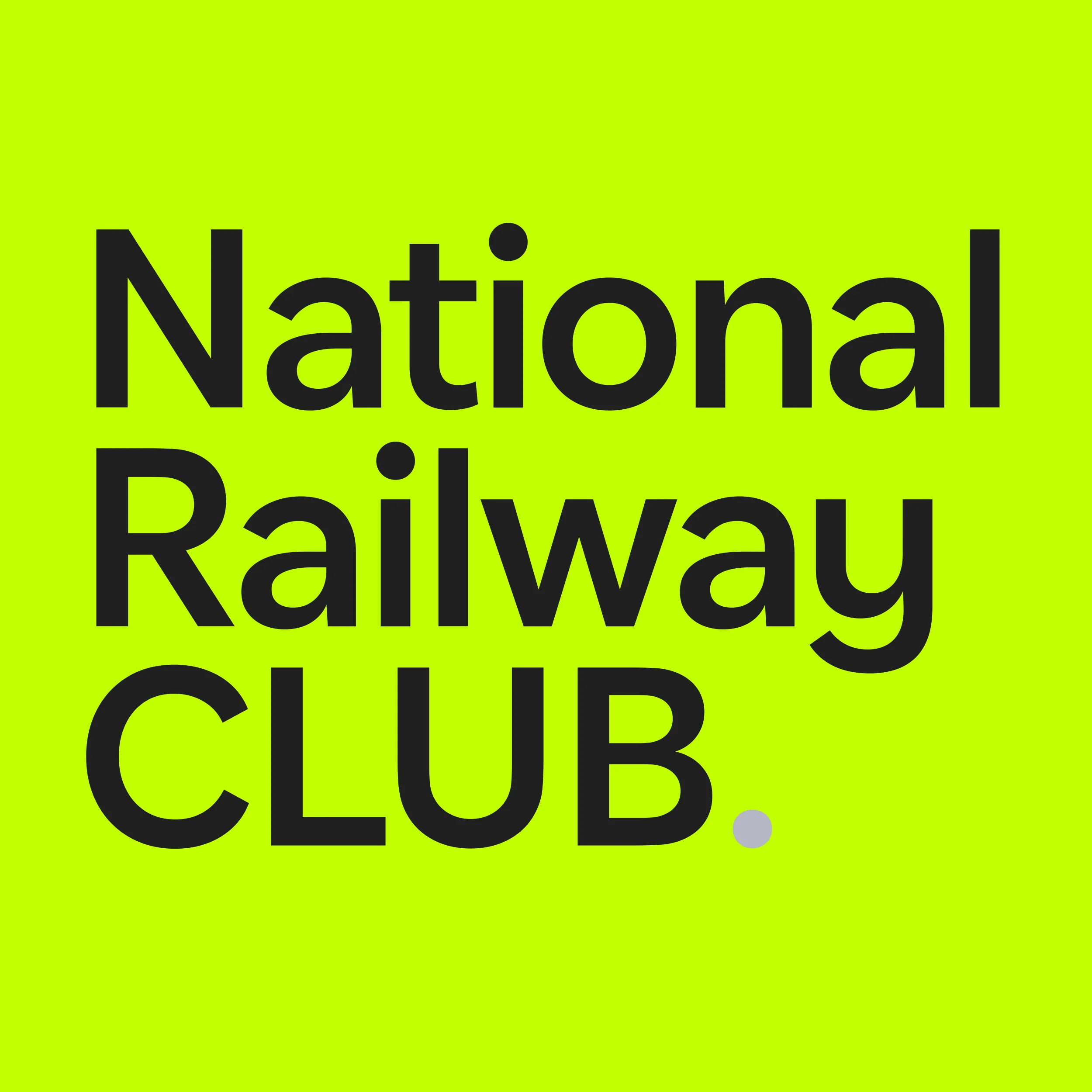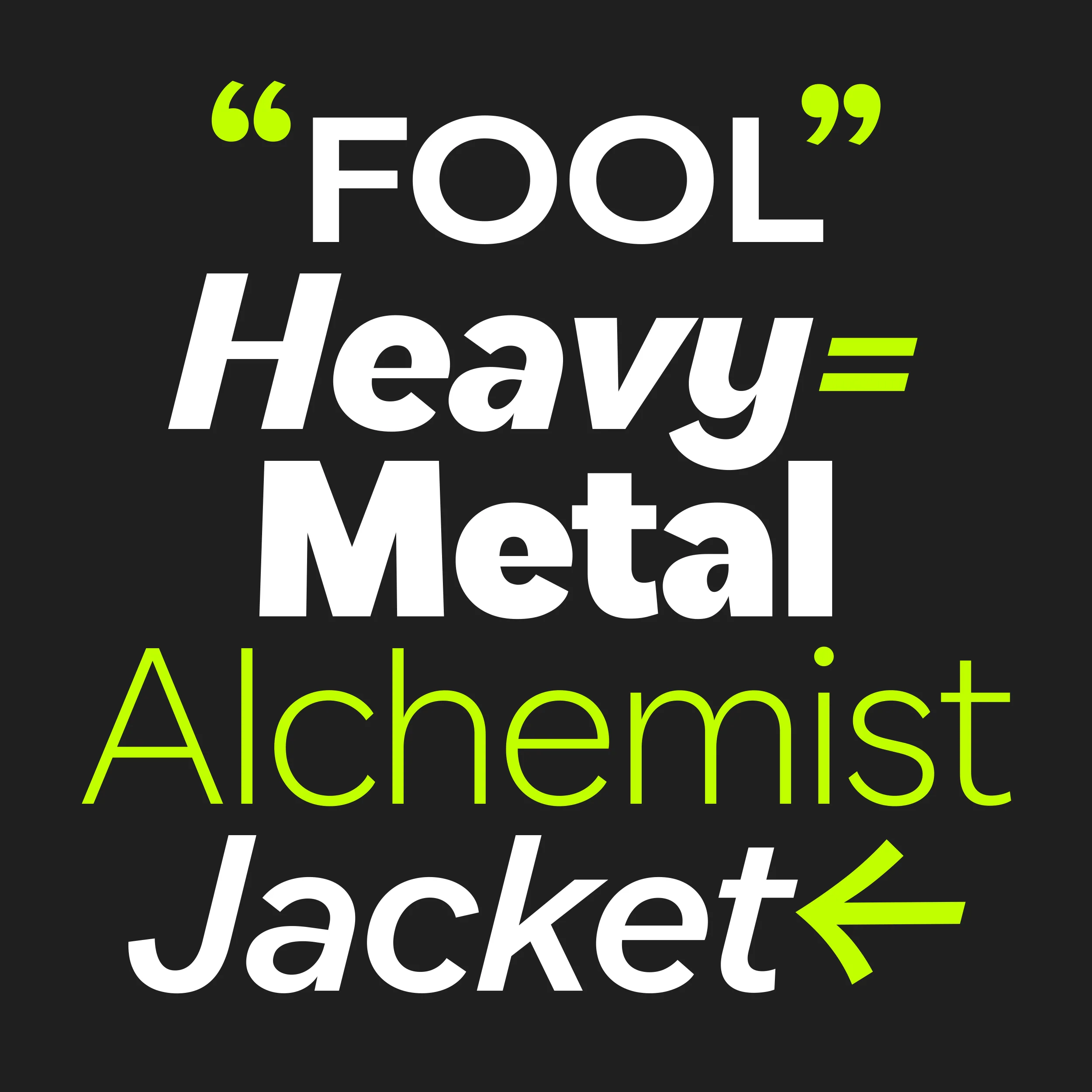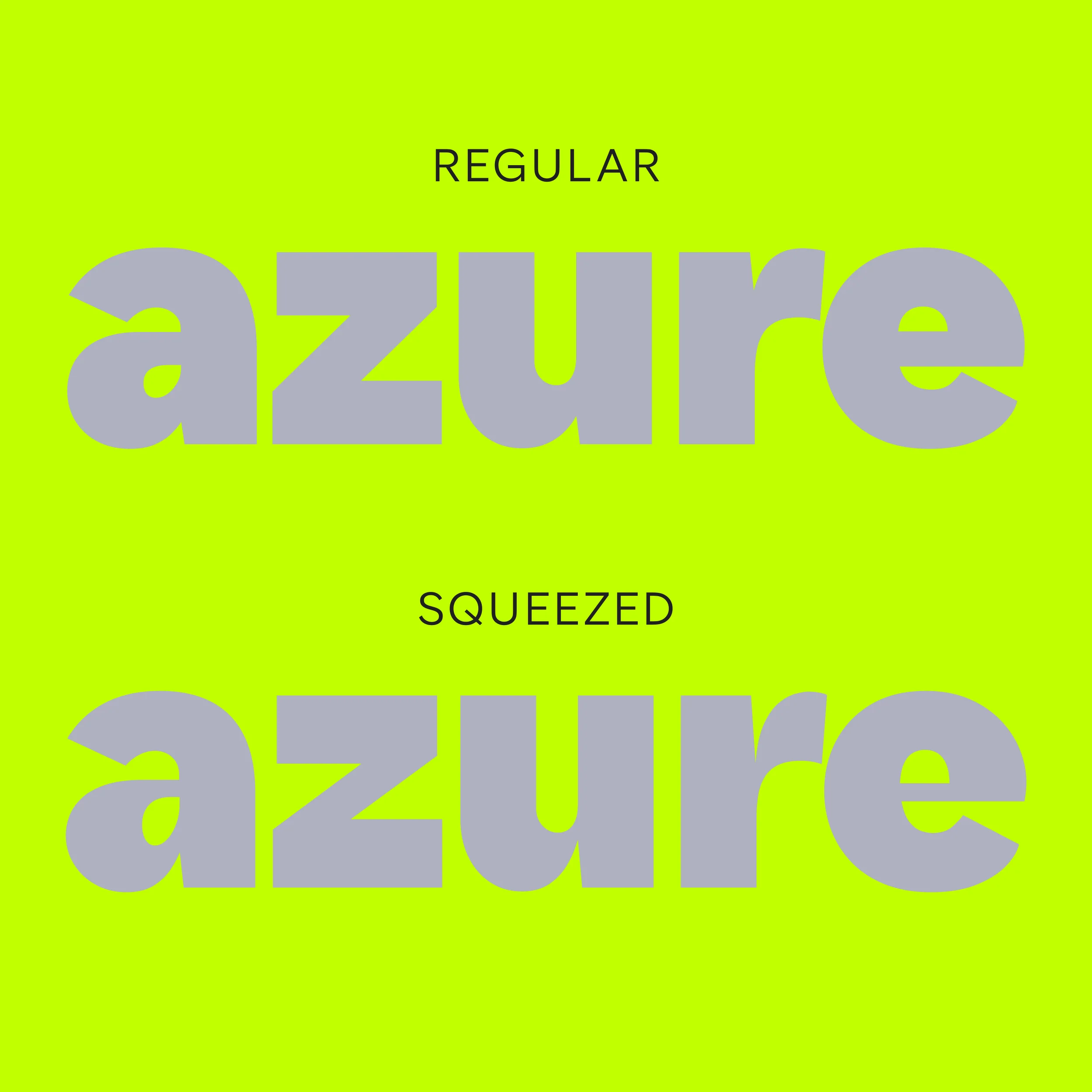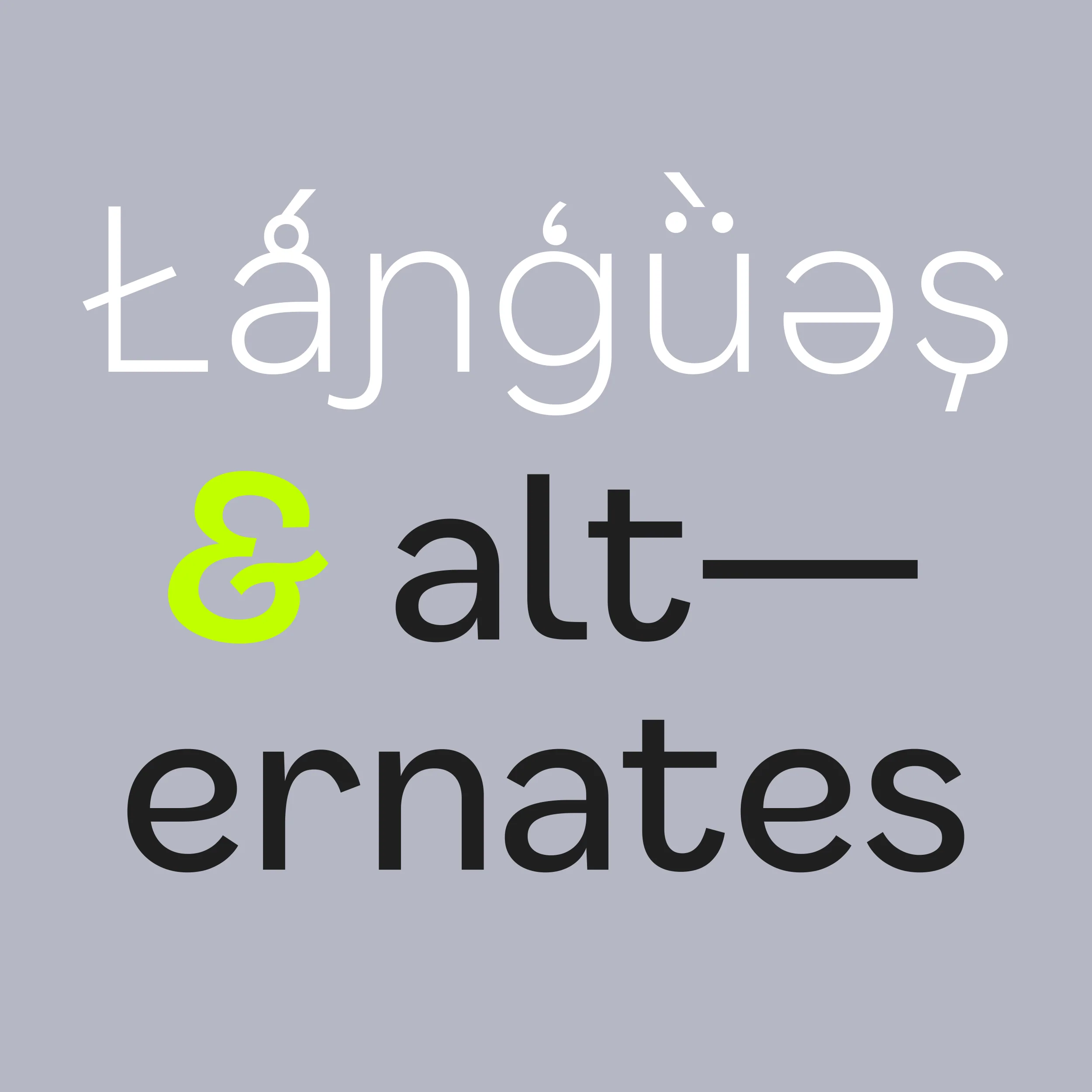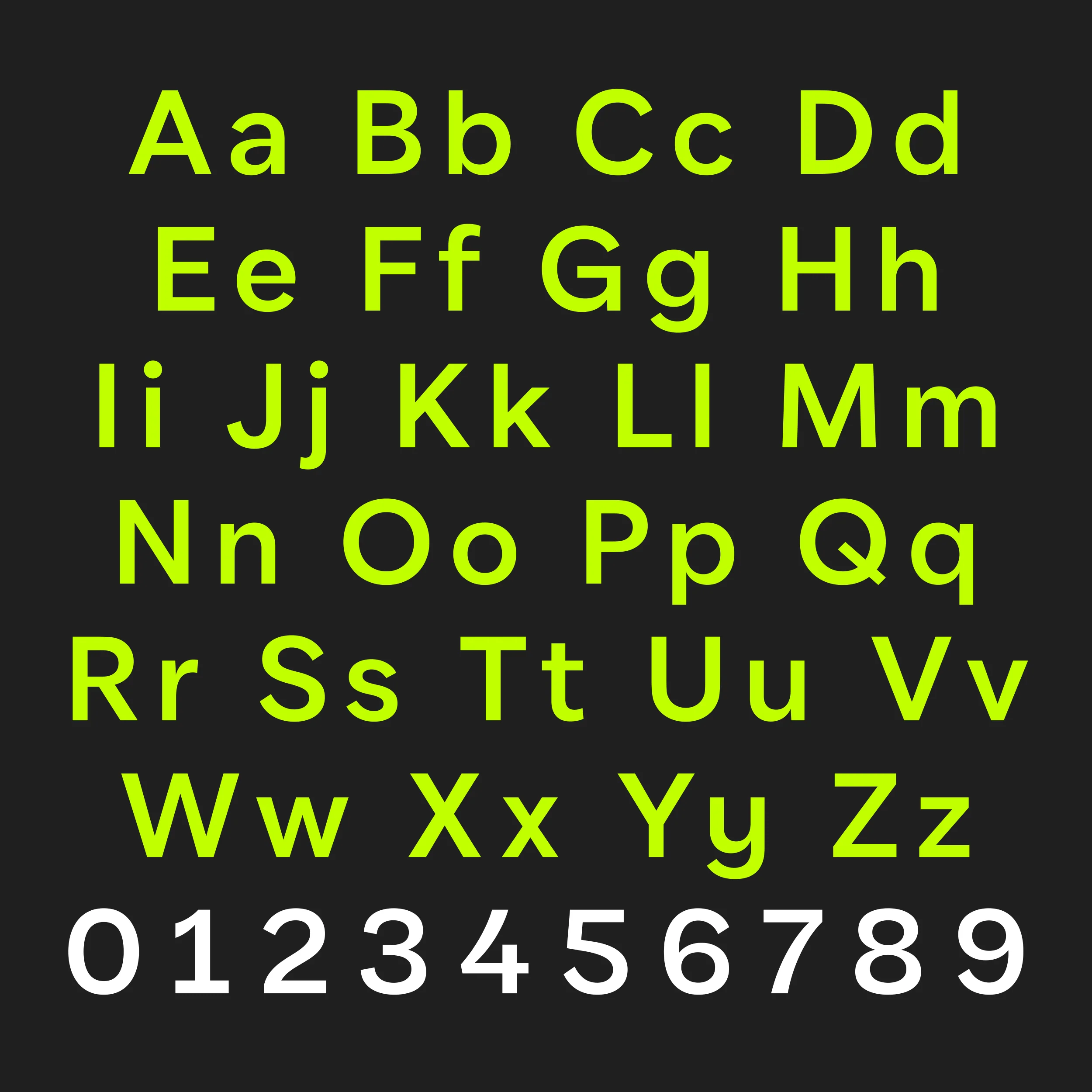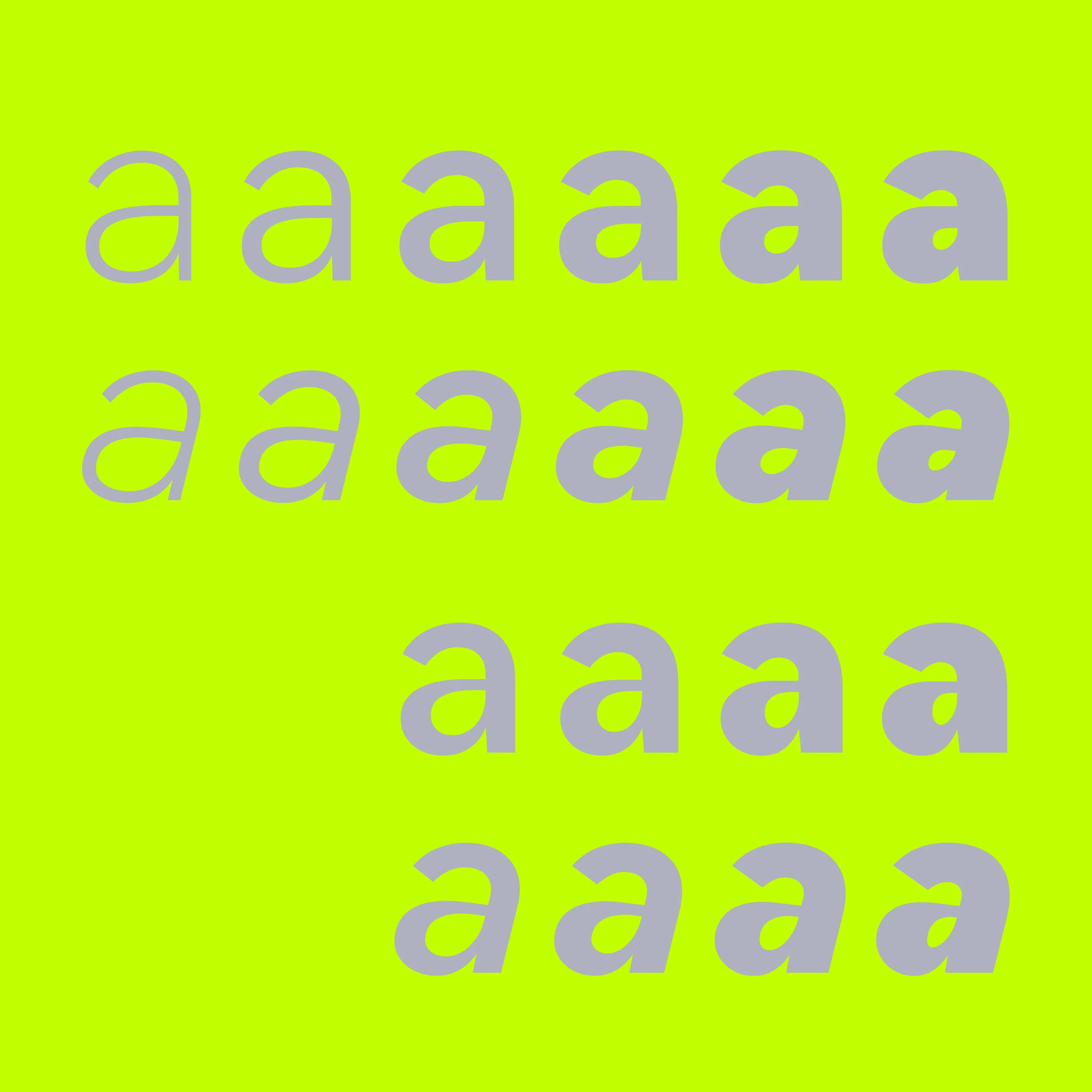
Gamble
Gamble is a contemporary geometric sans-serif variable typeface featuring three adjustable axes: weight, squeeze, and tilt.
With a rich selection of alternate characters, Gamble enhances typographic creativity, making it an ideal option for global publishing, editorial projects, and branding initiatives. Whether used for striking display headlines or compact UI elements, Gamble delivers outstanding performance and visual impact. Gamble also includes features such as fractions and small caps.
Gamble is a contemporary geometric sans-serif variable typeface featuring three adjustable axes: weight, squeeze, and tilt.
With a rich selection of alternate characters, Gamble enhances typographic creativity, making it an ideal option for global publishing, editorial projects, and branding initiatives. Whether used for striking display headlines or compact UI elements, Gamble delivers outstanding performance and visual impact. Gamble also includes features such as fractions and small caps.